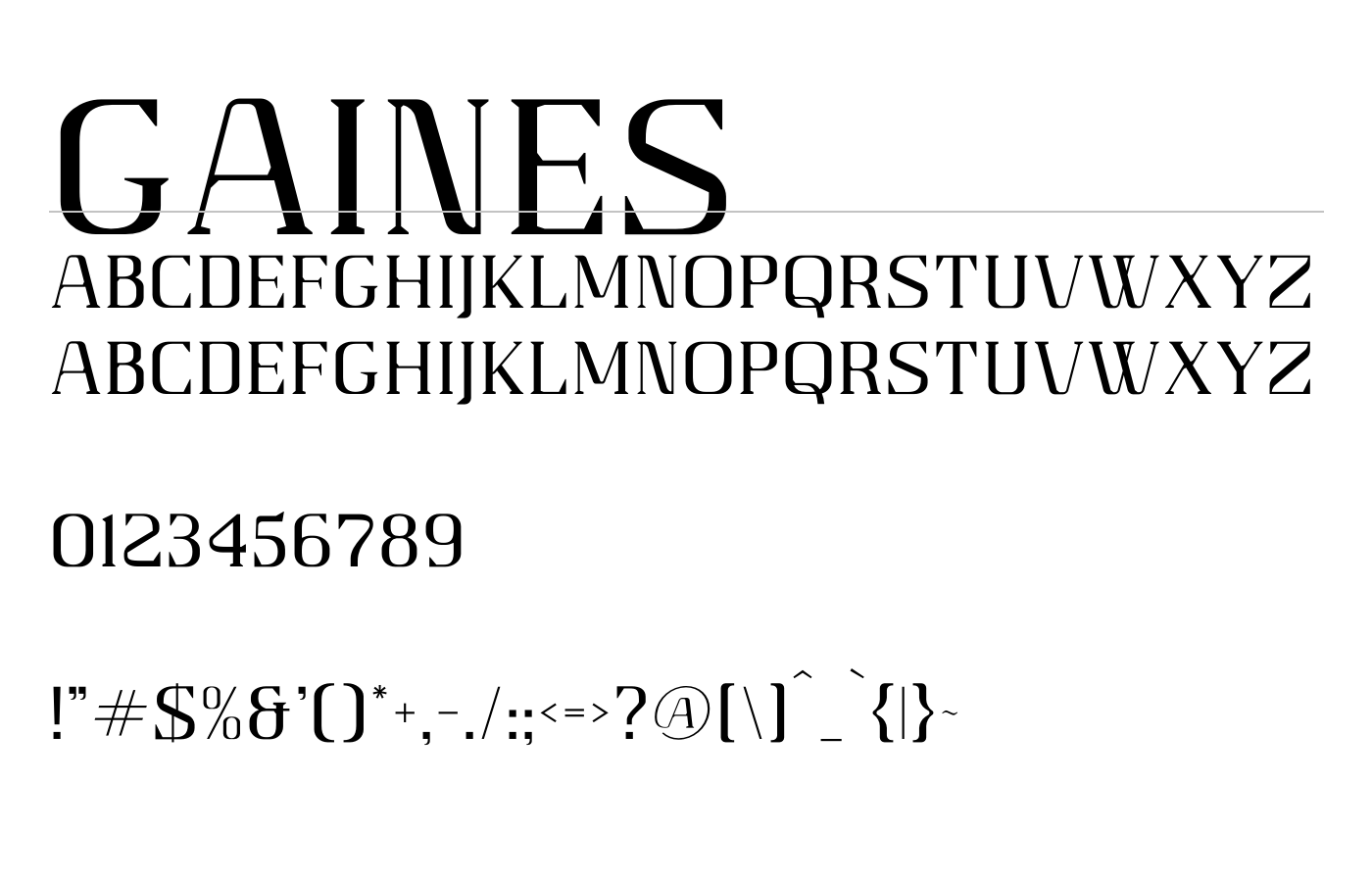
Gaines is a sophisticated serif font characterized by its tall, narrow letterforms and sharp, high-contrast strokes. With its elegant, refined style and subtle vintage flair, it works beautifully for upscale branding, editorial headlines, and luxury packaging where a touch of classic distinction is desired. Its clean yet distinctive shapes make it ideal for making a strong, stylish impression.
Gaines Font
About Gaines Font